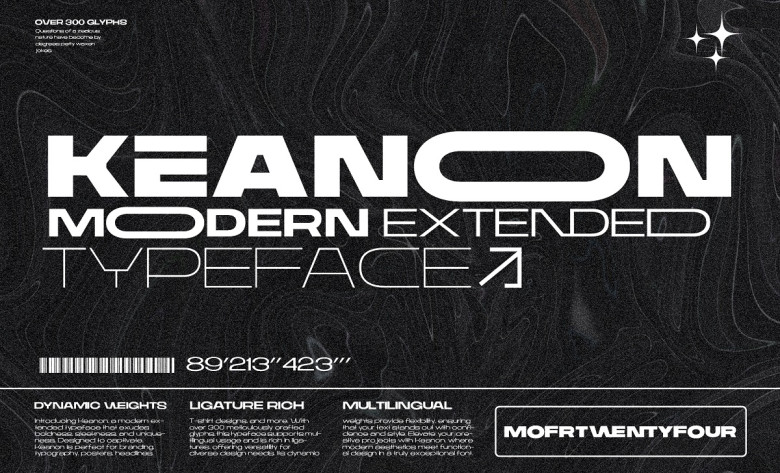
Keanon is a new unique typeface that appeared due to post-industrial, elongated, and fully confronted modernity with its audacity, streamlining, and exclusiveness. Keanon is overequipped by offering the provision of more than 300 glyphs, and its ーligatures are second to none, and it adeptlycomma; eloquently ciphers in multiple languages, which speaks volume on how versatile it is.
This universal stroke applies itself to a range of artistic needs – from creating an entailing corporate identity, to format the glossy magazine’s pages, typographic appeal, the pop poster appeal, thumbnail fascination, or even T–shirt dazzle. The creativity in Keanon is exceptional as he adds unique style to anything he touches, making every challenge he takes so professionally interesting.
Keanon Sans Serif Font Family